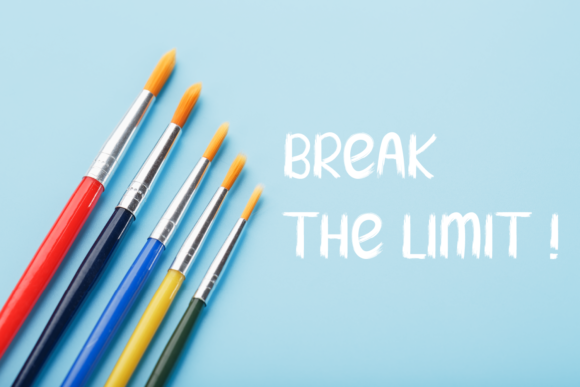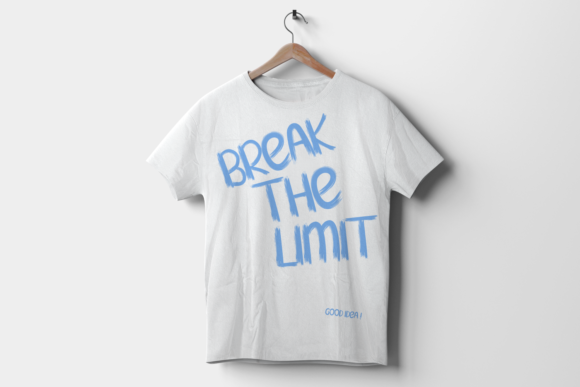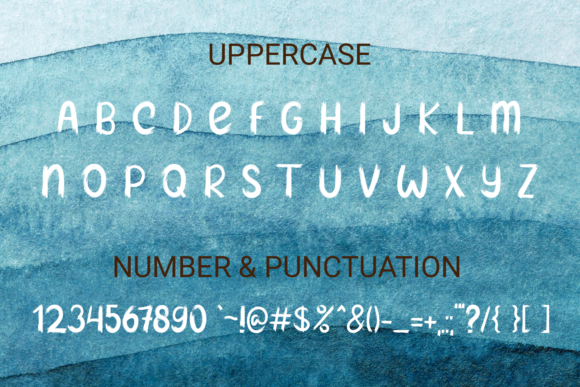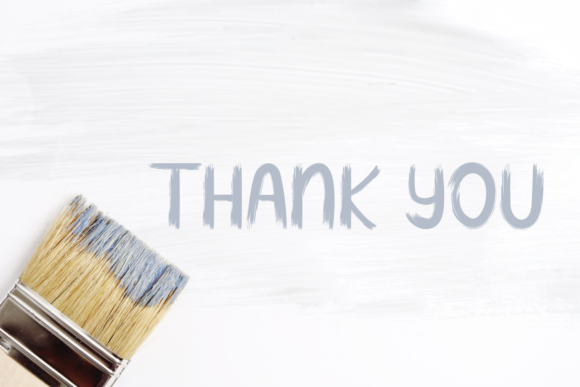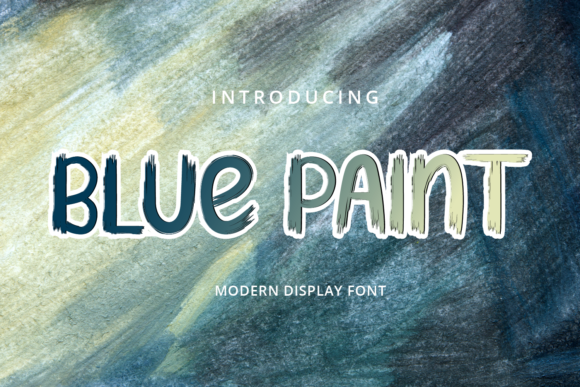
Introducing Blue Paint Font: A Unique and Versatile Display Font
Are you tired of using the same old fonts in your designs? Look no further than Blue Paint Font, a one-of-a-kind display font that is sure to make your work stand out. Created with the help of a brush pen, this font boasts an incredibly versatile style that can be used to create spectacular designs for a variety of projects.
The Story Behind Blue Paint Font
Blue Paint Font was designed with the intention of capturing the natural, fluid look of brush pen writing. The font’s creator used a brush pen to craft each letter, resulting in a unique and organic feel that is perfect for designers and crafters looking to add a personal touch to their work.
What Makes Blue Paint Font So Special?
So, what sets Blue Paint Font apart from other display fonts on the market? Here are just a few of its standout features:
- Unique and Handwritten Style: Each letter in Blue Paint Font was carefully crafted by hand, giving the font a distinctive and personal feel.
- Versatile and Adaptable: Whether you’re designing a logo, creating a social media graphic, or crafting a flyer, Blue Paint Font can be used in a wide range of applications.
- Easy to Read and Understand: Despite its creative and artistic style, Blue Paint Font is surprisingly easy to read and understand, making it perfect for use in both digital and print designs.
How to Use Blue Paint Font in Your Designs
Now that you’re familiar with Blue Paint Font, let’s talk about how to use it in your designs. Here are a few ideas to get you started:
- Logos and Branding: Use Blue Paint Font to create a unique and memorable logo for your business or brand.
- Social Media Graphics: Add a personal touch to your social media graphics with Blue Paint Font, perfect for creating eye-catching posts and stories.
- Flyers and Brochures: Use Blue Paint Font to add a creative and artistic touch to your print materials, such as flyers, brochures, and posters.
- Digital Art and Illustration: Blue Paint Font can also be used in digital art and illustration, adding a handwritten and organic feel to your work.
Tips and Tricks for Getting the Most Out of Blue Paint Font
To help you get the most out of Blue Paint Font, here are a few tips and tricks:
- Experiment with Different Colors: While the font’s name is “Blue Paint,” there’s no reason you can’t experiment with different colors to find the perfect shade for your design.
- Play with Font Sizes: Blue Paint Font looks great in a variety of sizes, from small and delicate to large and bold.
- Combine with Other Fonts: Don’t be afraid to combine Blue Paint Font with other fonts to create a unique and visually interesting design.